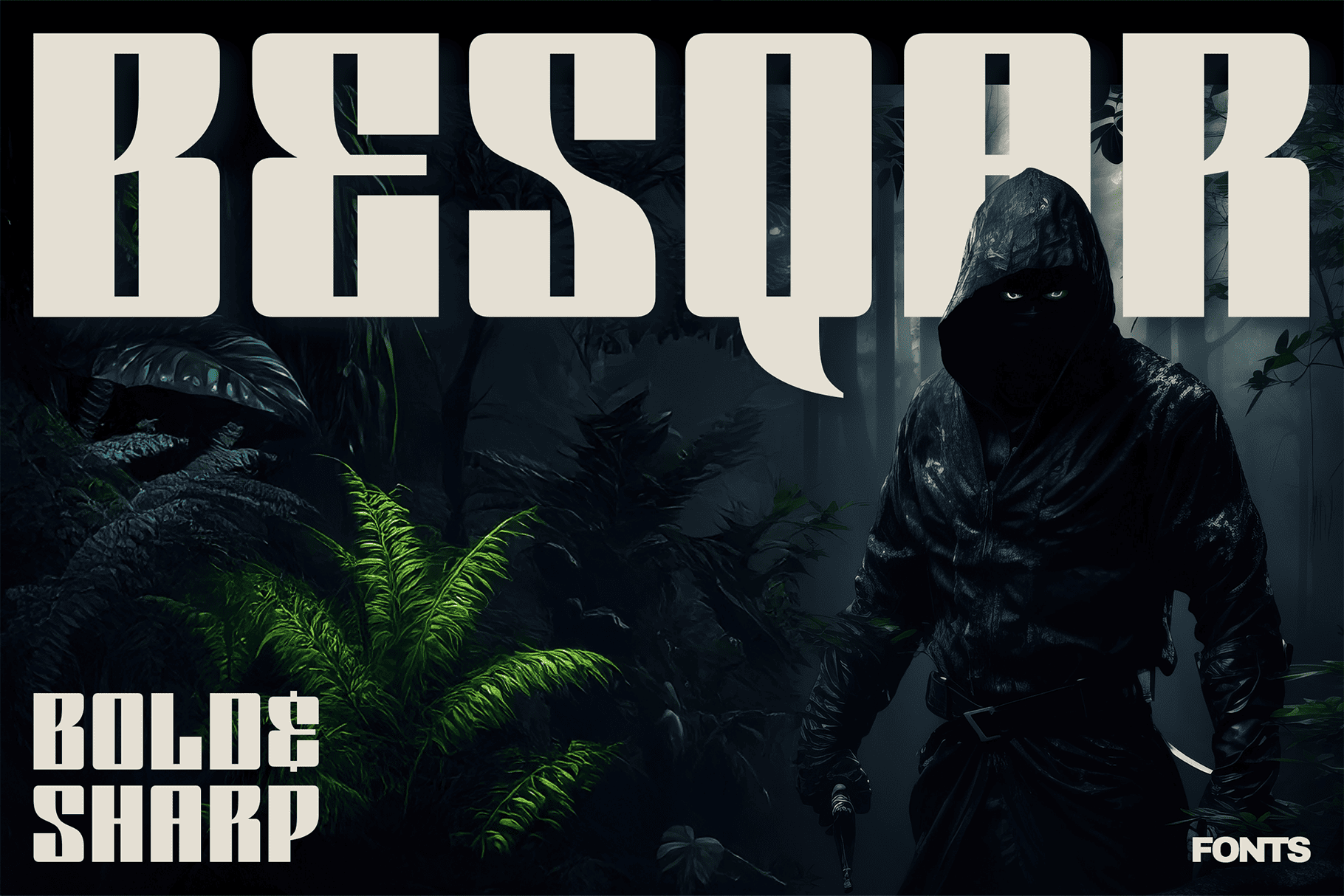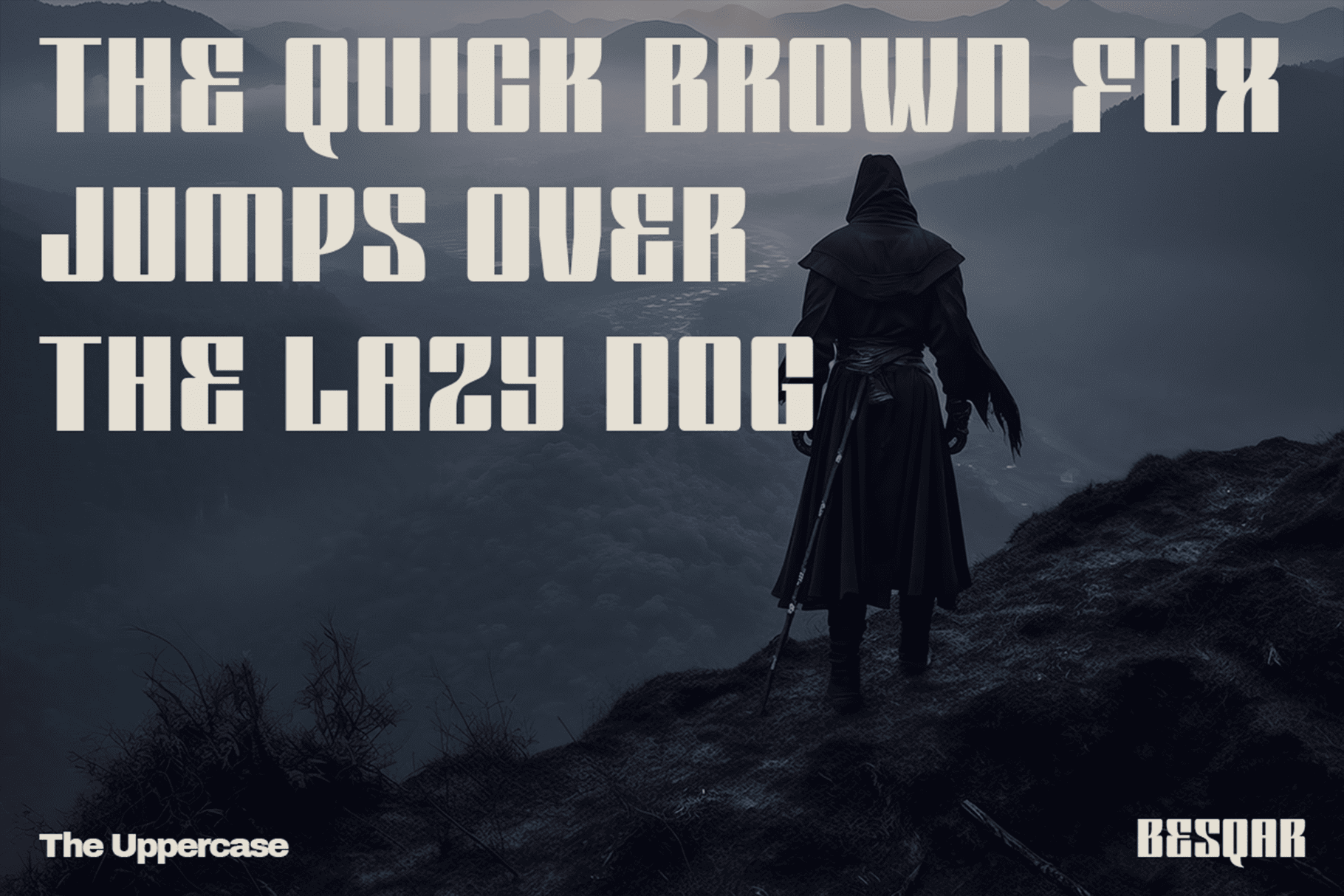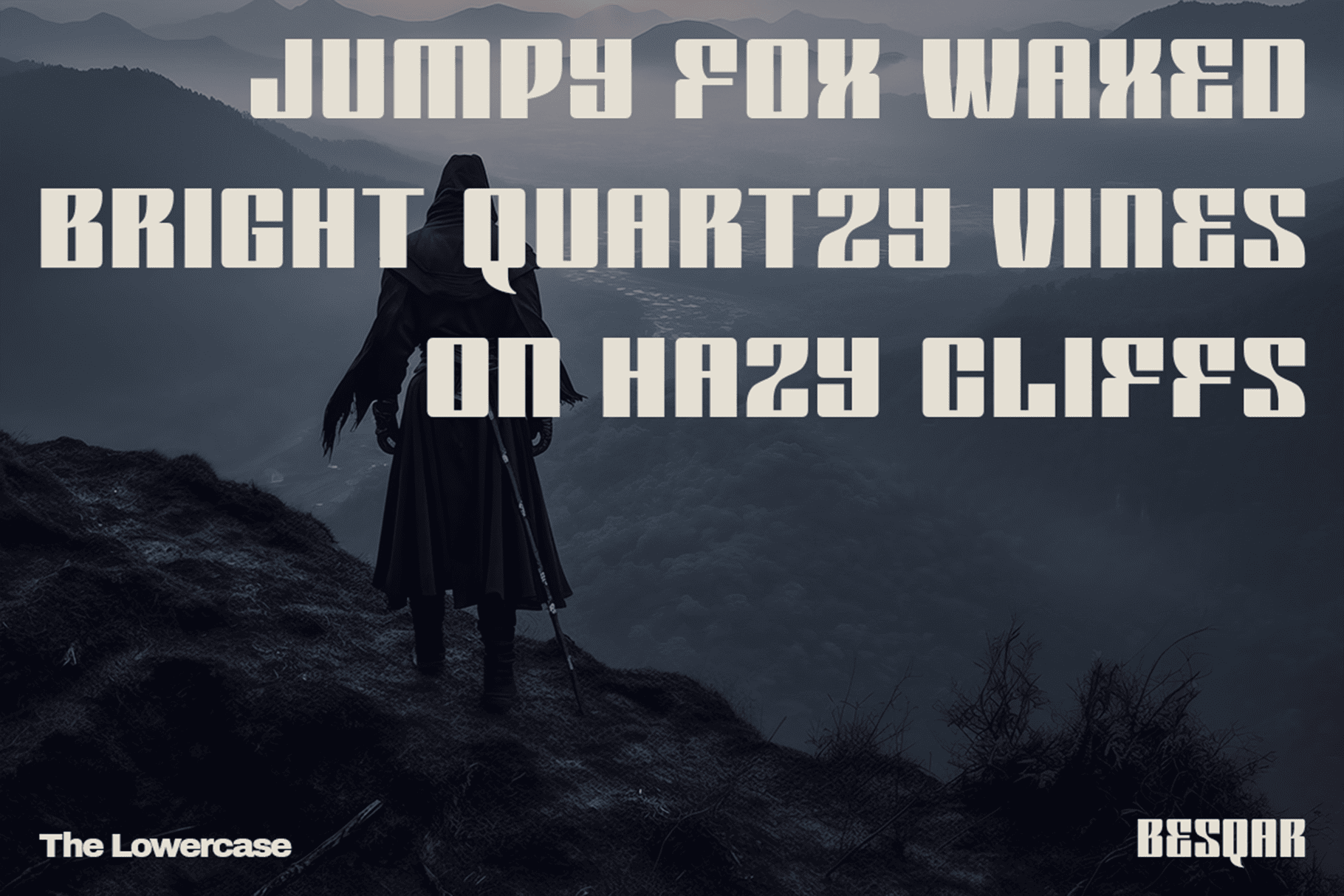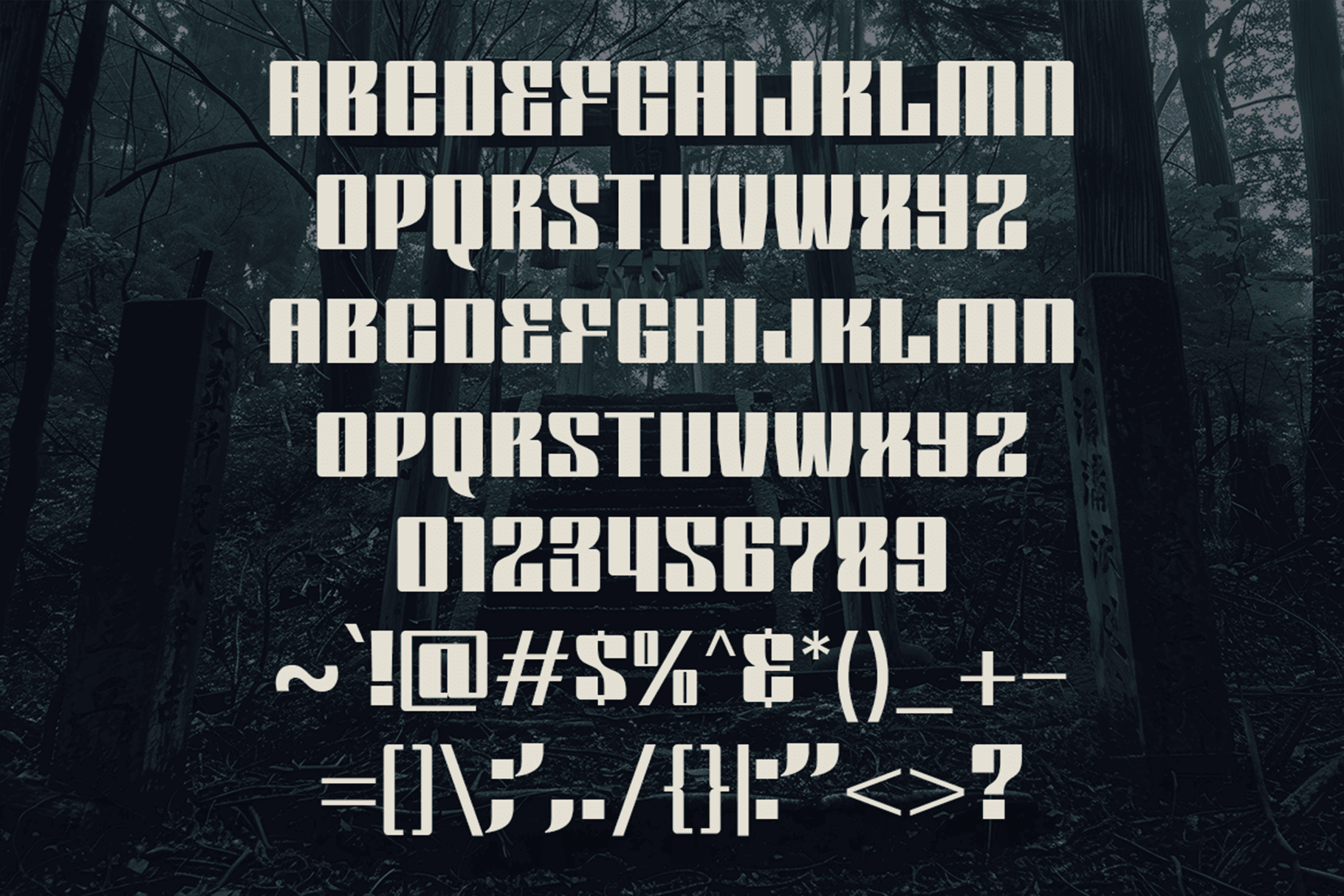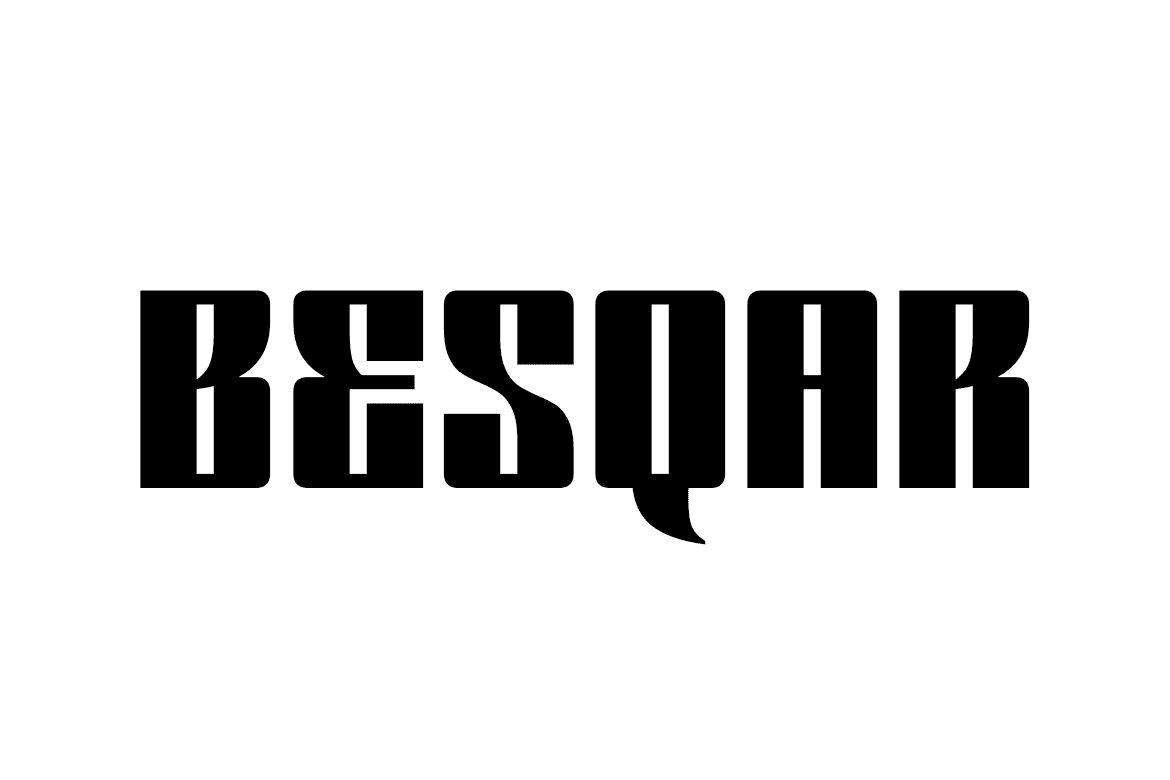
Besqar – Bold Square Fonts
BESQAR – The Blade-Crafted Typeface for the Shadows
Step into the world of silent assassins, where every strike is swift and precise. Besqar is a bold, square, and razor-sharp font forged with the spirit of ninjas from legendary movies and epic games. Each letter mimics the deadly elegance of a katana, delivering power, precision, and presence to your design.
Perfect for movie posters, video game titles, comic covers, toy packaging, or anything that breathes dark, assassin, sci-fi, and ninja vibes. Whether you’re crafting the next stealth-action blockbuster or designing a futuristic dystopian brand, Besqar cuts through the noise and commands attention.
Silent, bold, unstoppable — Besqar is your ultimate weapon in typography.